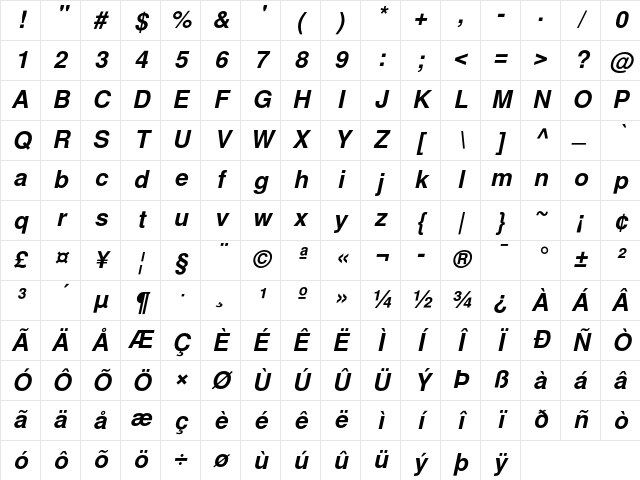
Nimbus Sans L Bold Italic
Foundry: (URW)++ Design & Development
Complete Nimbus Sans L Bold Italic glyph index. Displaying only characters natively supported by Nimbus Sans L Bold Italic font.
Design Context for Nimbus Sans L
Nimbus Sans L is a composed and adaptable typeface that performs quietly and consistently across a wide range of design contexts. The slanted form adds forward momentum and visual energy. Its bold stroke weight gives it real presence on the page.
Pro Tip: Use Nimbus Sans L for emphasis, pull quotes, and subheadings where its slanted energy can add rhythm to the layout.
Who designed the Nimbus Sans L Bold Italic font?